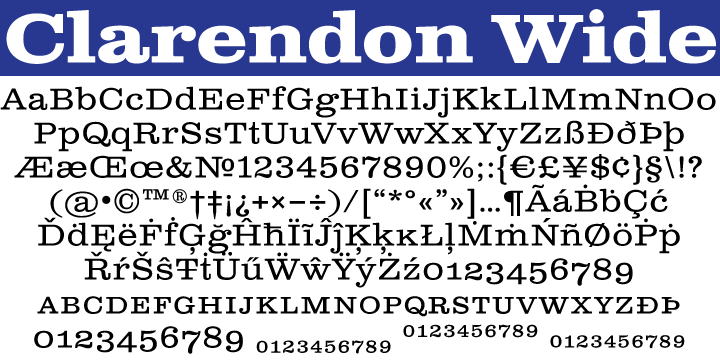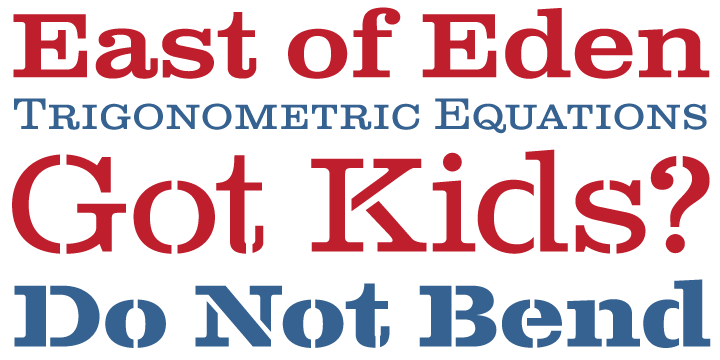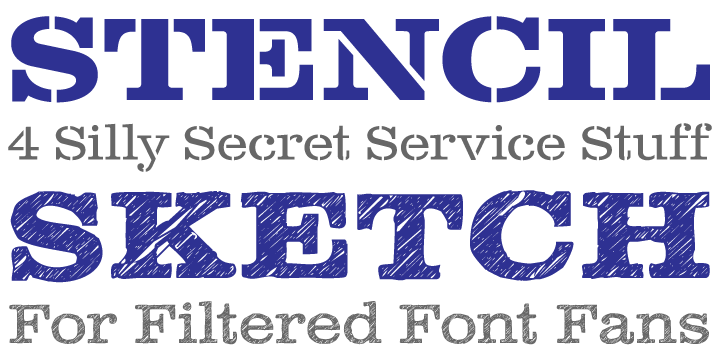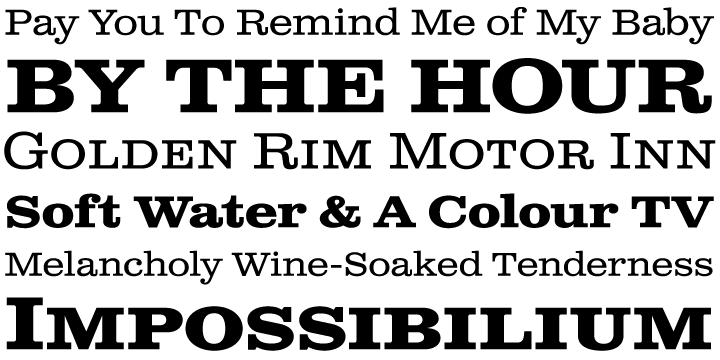
Clarendon Wide is a stencil, display serif and display slab font family. This typeface has ten styles and was published by Canada Type.
By overwhelming popular demand, this is the wide display companion to Canada Type’s Clarendon Text family. It comes in ten styles: regular, medium, bold, with small caps and oldstyle Figures counterparts, as well as stencil and sketch versions of the regular and the bold. All the fonts come equipped with superscripts/numerators, denominators, and scientific inferiors. The OpenType fonts also contain automatic fractions and class-based kerning.